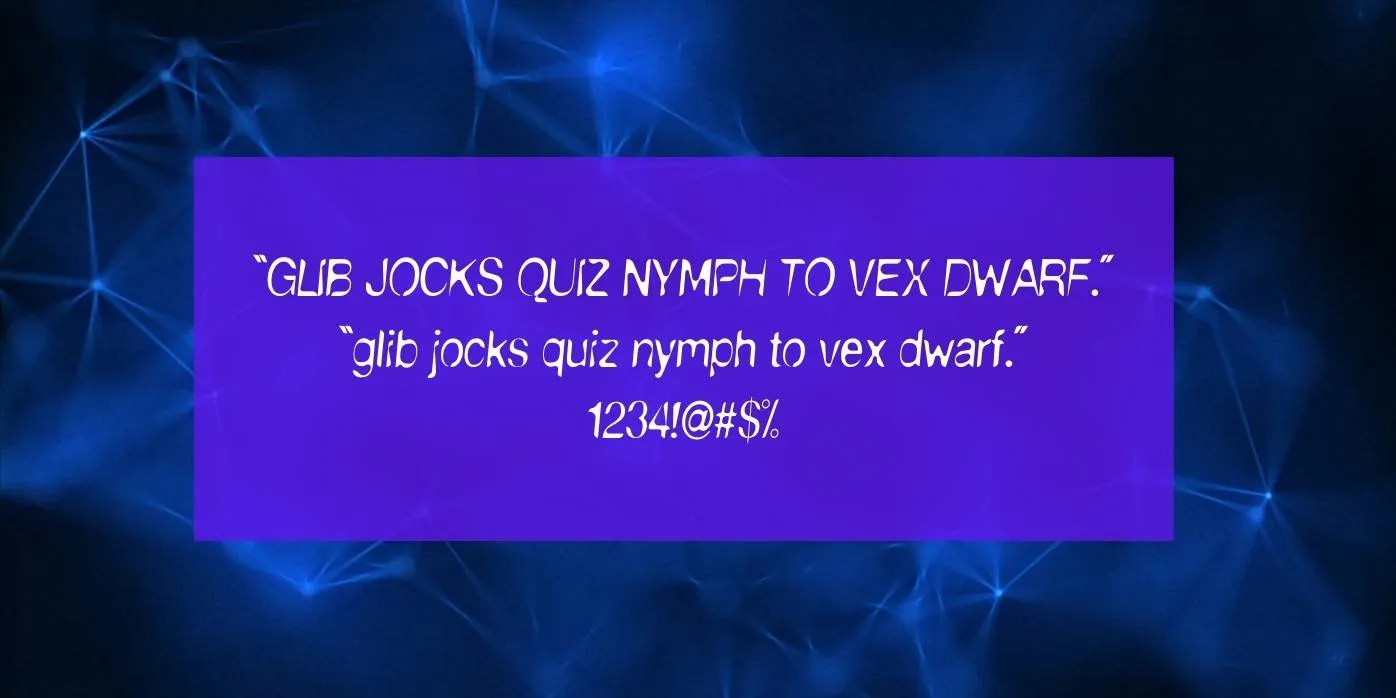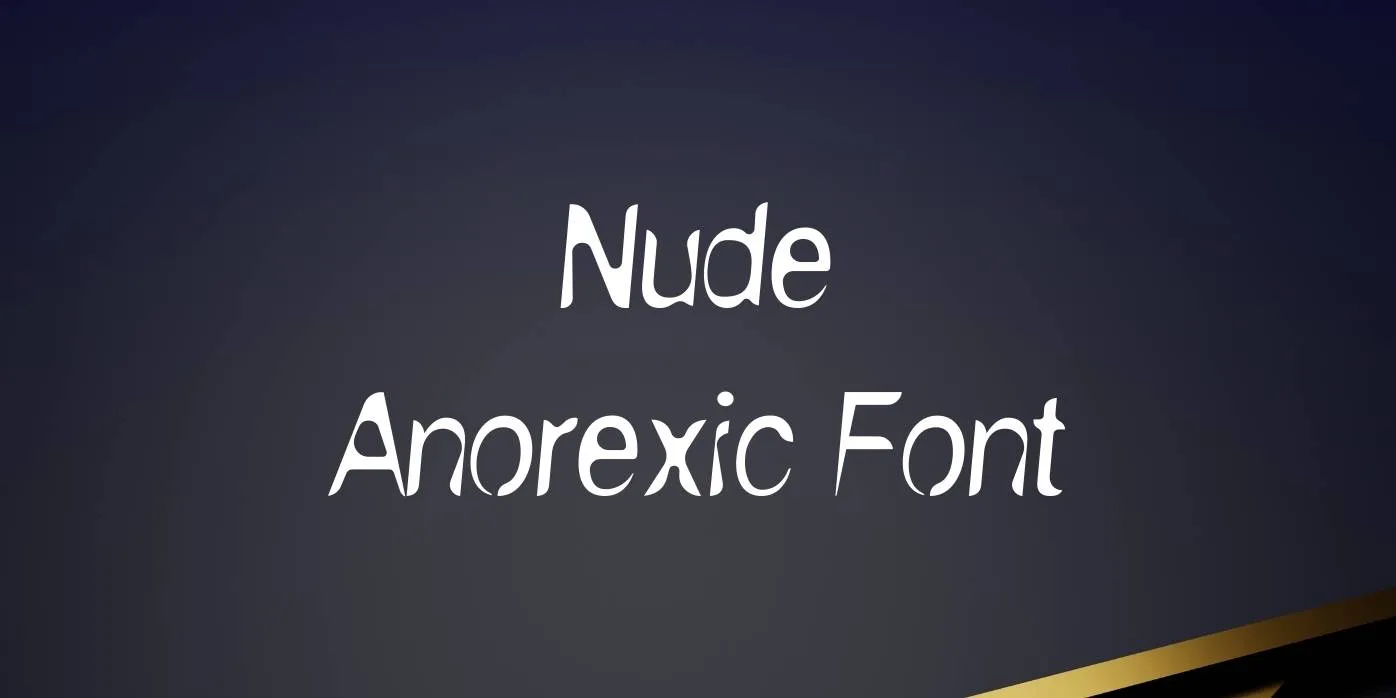
Nude Anorexic Font
In this post, we present a new typeface named Nude Anorexic Font. This typeface was designed by MaisFontes. It belongs to the Fancy font family. The style of this font is very unique.
This classy family is perfect for headlines, logos, and short texts. Its similar obelix pro font is best for many designs. This stylish typeface includes more than 271 unique and attractive Glyphs. It supports many languages including English, French, Spanish, Portuguese, and more.